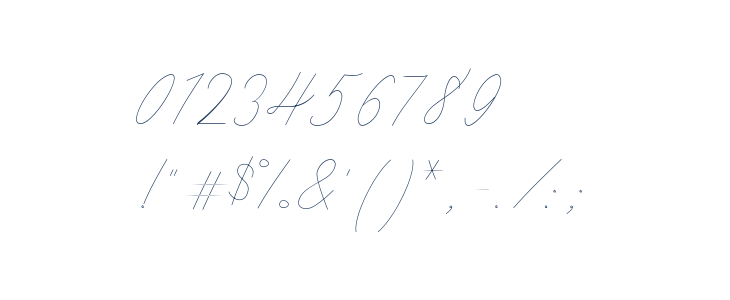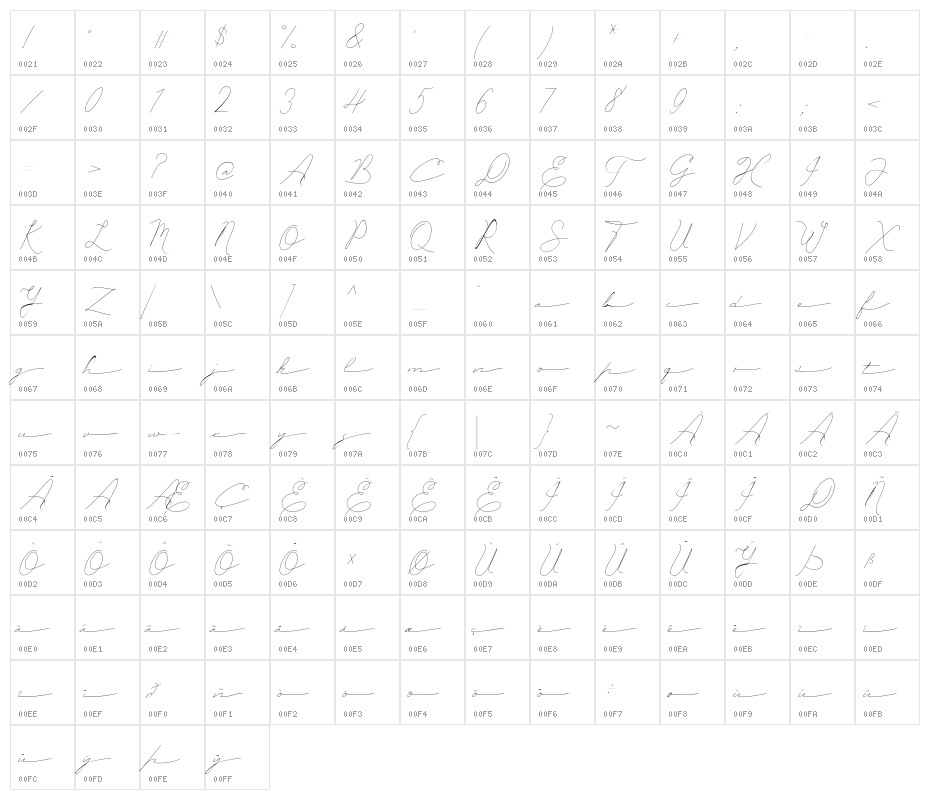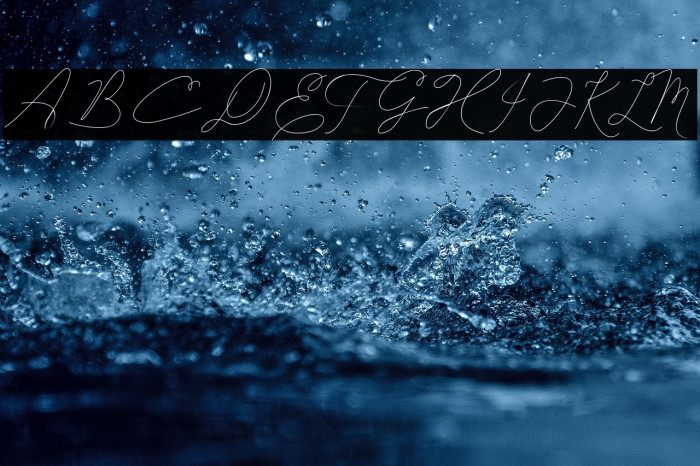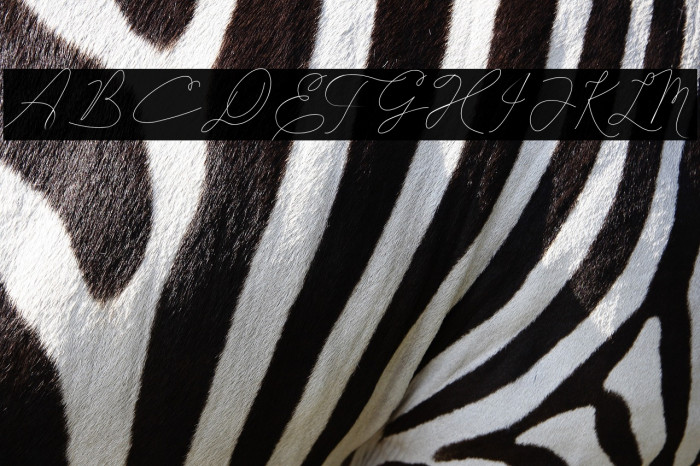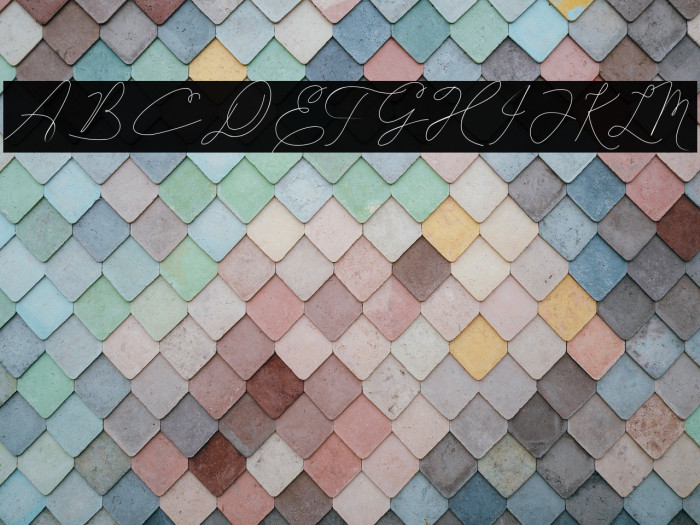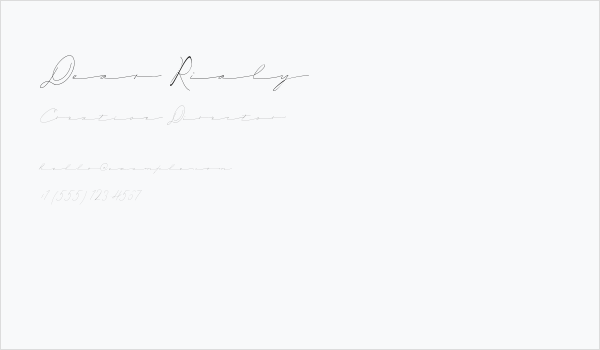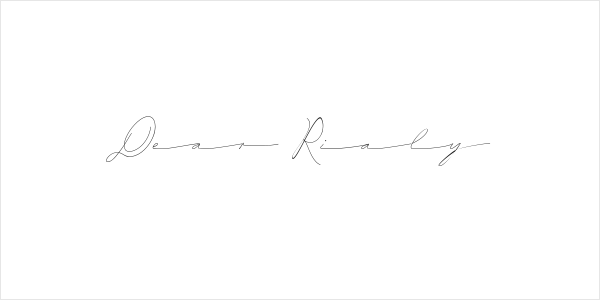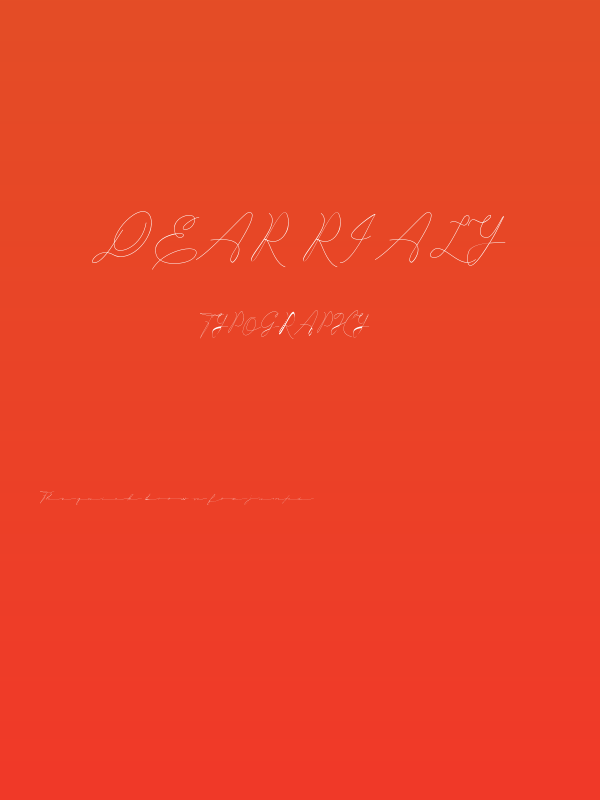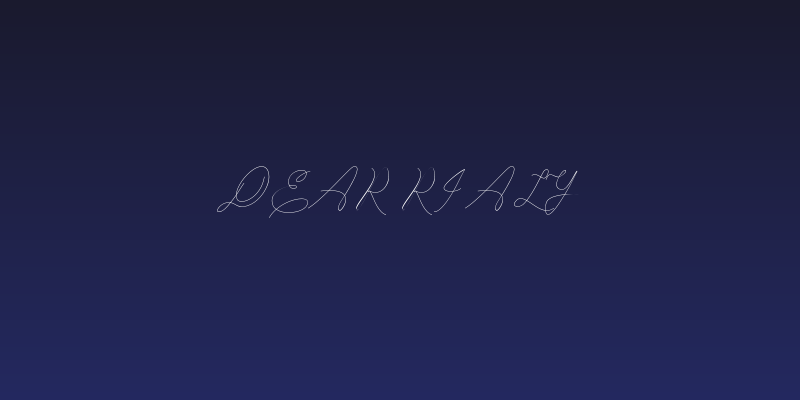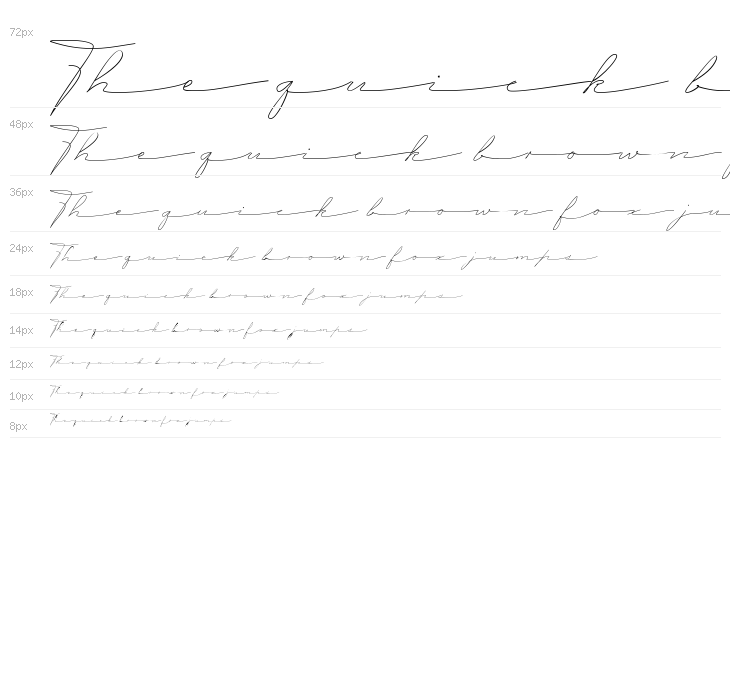
Dear Rialy Font
Dear Rialy Description
This elegant script font features a delicate and flowing design, characterized by its thin, graceful strokes and cursive style. The uppercase letters exhibit a sophisticated flair with sweeping curves and loops, while the lowercase letters maintain a consistent fluidity, enhancing the overall aesthetic. The numerals are designed with a similar elegance, ensuring a cohesive look across all characters. Special characters are thoughtfully integrated, maintaining the font's refined appearance. This font's light weight and airy feel make it suitable for projects that require a touch of elegance and sophistication.
| Overall Style | Elegant |
| Use Case | Logos, Invitations, Personal stationery |
| Proposed Projects | Ideal for wedding invitations, elegant branding, personal stationery, and high-end product packaging. |